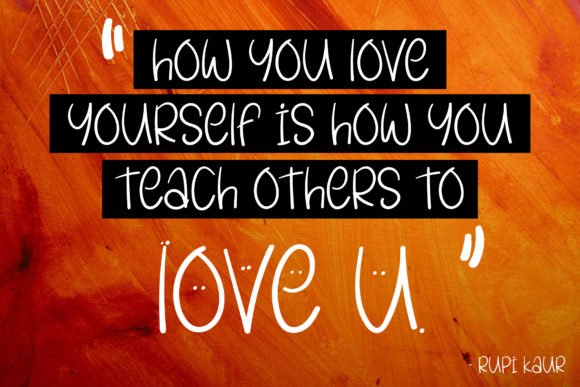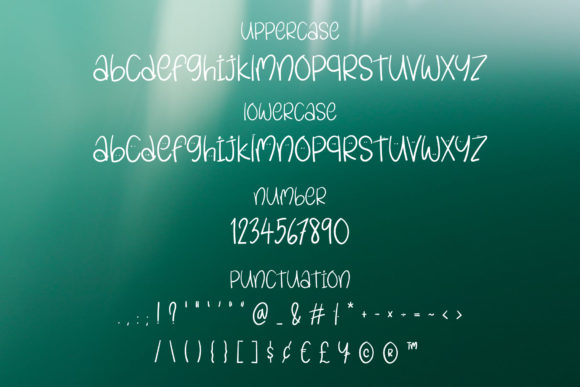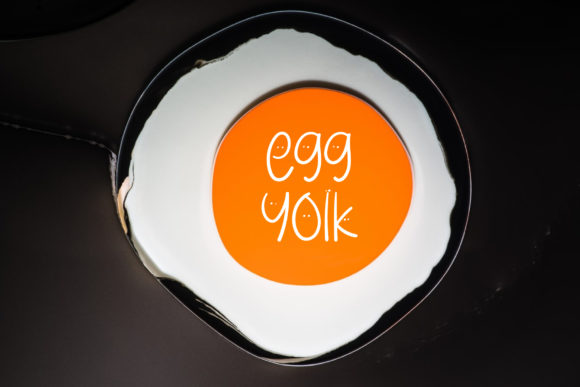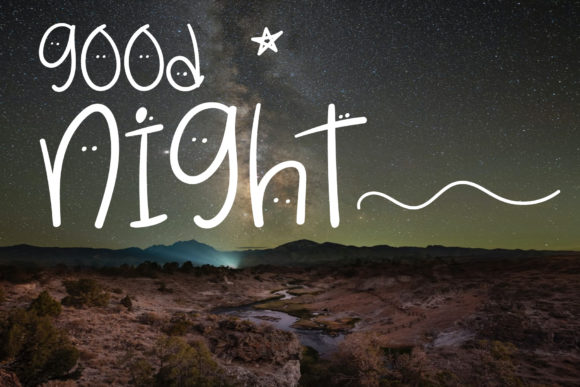
Discover the Charm of Friendship Font: Elevate Your Designs with a Cute and Readable Handwritten Style
Are you a designer or crafter looking for a font that can add a touch of warmth and personality to your creations? Look no further than Friendship Font, a delightful handwritten font that is sure to become a valuable asset in your font library. With its cute and readable style, Friendship Font is perfect for a wide range of design projects, from invitations and greeting cards to blog posts and social media graphics.
The Characteristics of Friendship Font
Friendship Font is a carefully crafted handwritten font that boasts a unique blend of elegance and playfulness. Its characters are designed to be highly legible, making it an excellent choice for body text, headings, and titles. The font’s x-height is generously proportioned, ensuring that it remains clear and easy to read even at smaller sizes.
One of the standout features of Friendship Font is its friendly and approachable feel. The font’s strokes are smooth and flowing, with a subtle variation in line width that gives it a human touch. This makes it perfect for designs that require a personal and emotive tone, such as wedding invitations, birthday cards, and thank-you notes.
The Benefits of Using Friendship Font
So why should you choose Friendship Font for your design projects? Here are just a few benefits of using this versatile and charming font:
- Improved Readability: Friendship Font is designed to be highly readable, making it perfect for long blocks of text or for designs that require a clear and concise message.
- Enhanced Emotional Connection: The font’s friendly and approachable style helps to create an emotional connection with your audience, making it ideal for designs that require a personal touch.
- Versatility: Friendship Font is suitable for a wide range of design projects, from digital graphics to print materials, and can be used for both personal and commercial projects.
How to Use Friendship Font in Your Designs
Friendship Font is a versatile font that can be used in a variety of design projects. Here are a few ideas to get you started:
- Invitations and Greeting Cards: Use Friendship Font to create beautiful and personalized invitations and greeting cards for special occasions.
- Blog Posts and Social Media Graphics: Add a touch of personality to your blog posts and social media graphics with Friendship Font, perfect for creating engaging and shareable content.
- Branding and Packaging: Use Friendship Font to create a unique and memorable brand identity, perfect for small businesses and entrepreneurs.
- Crafting and Scrapbooking: Add a personal touch to your crafting and scrapbooking projects with Friendship Font, perfect for creating beautiful and meaningful designs.
In conclusion, Friendship Font is a charming and versatile handwritten font that is sure to become a valuable asset in your font library. With its cute and readable style, it’s perfect for a wide range of design projects, from invitations and greeting cards to blog posts and social media graphics. Whether you’re a designer, crafter, or entrepreneur, Friendship Font is a great choice for anyone looking to add a touch of warmth and personality to their designs.